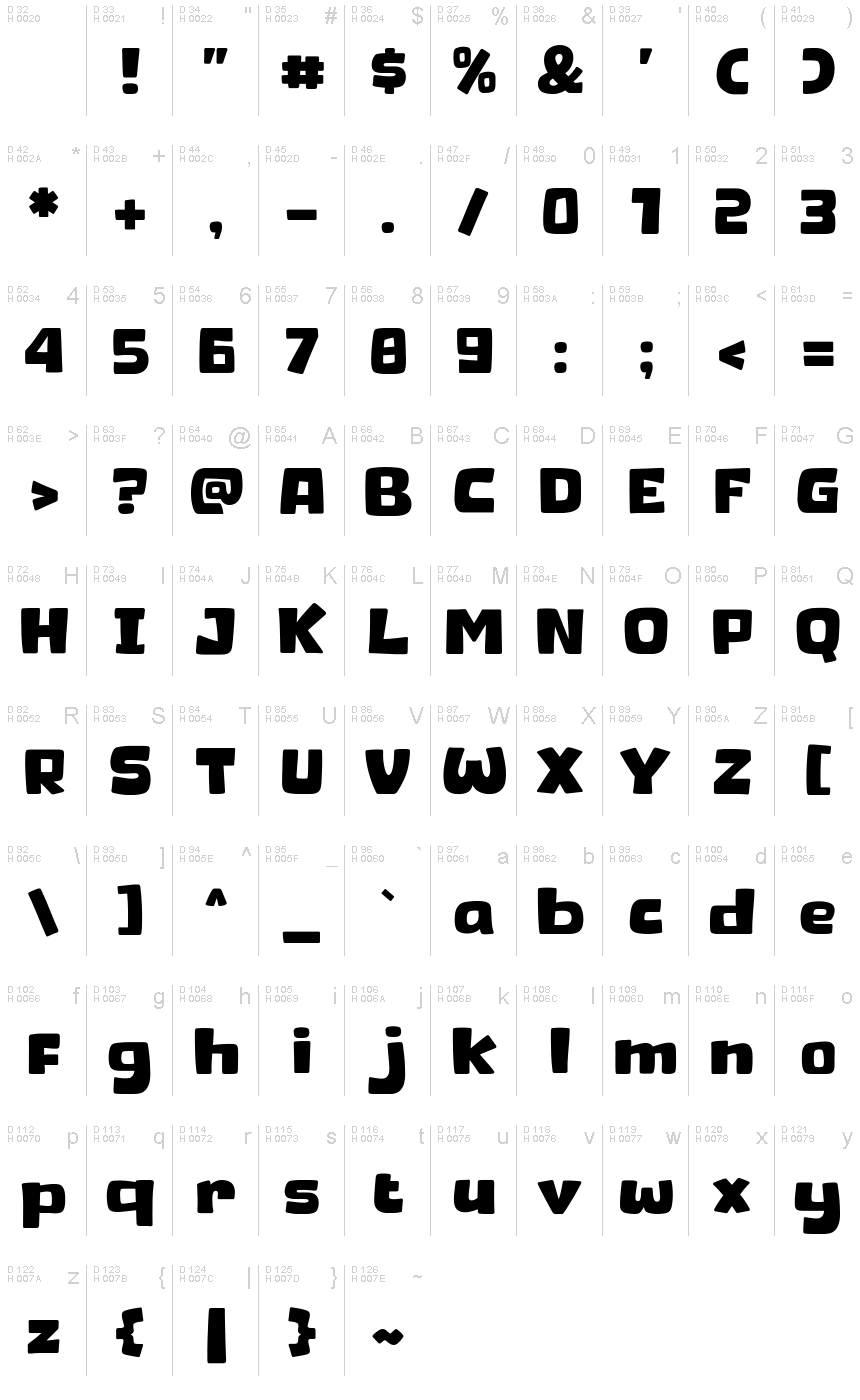
Ginger Cat
Ginger Cat, a captivating display font crafted by Khurasan, radiates a whimsical, cartoon-inspired essence. With its bold and expanded strokes, this font exudes a playful and energetic personality, immediately capturing the viewer's attention. The distinctive letterforms blend together seamlessly, creating a visually striking and cohesive aesthetic that evokes a sense of playfulness and charm.
Ginger Cat's versatility shines through its ability to add a touch of vibrant personality to a wide range of design projects. From eye-catching headlines and impactful logos to engaging social media graphics and children's illustrations, this font's bold and expressive characteristics make it a compelling choice for designers seeking to infuse their work with a touch of quirky, cartoon-inspired flair.